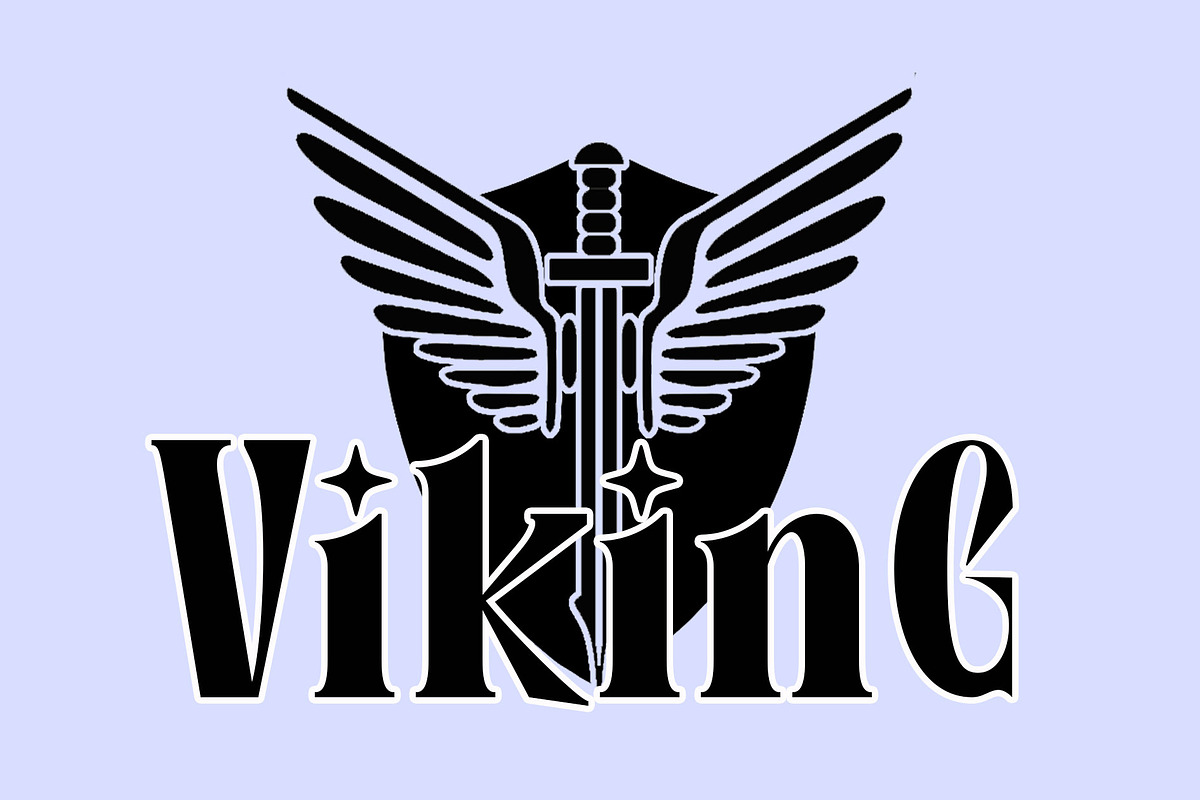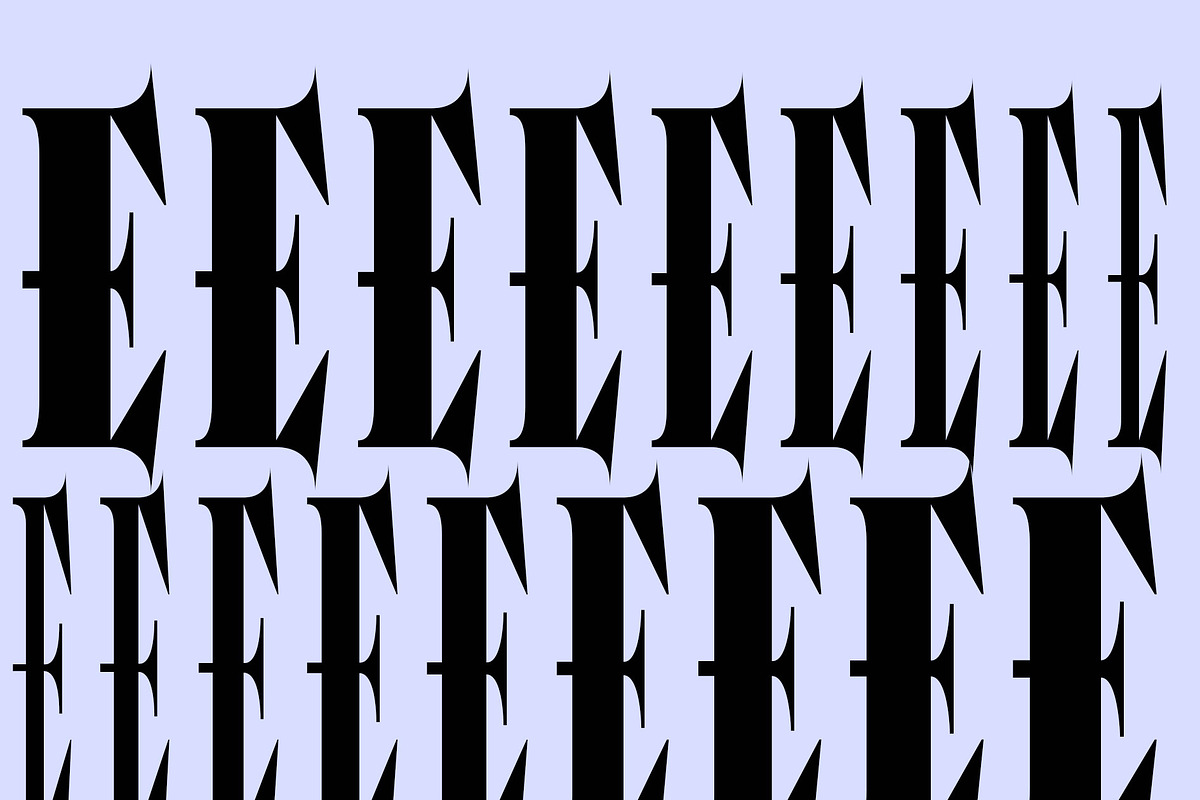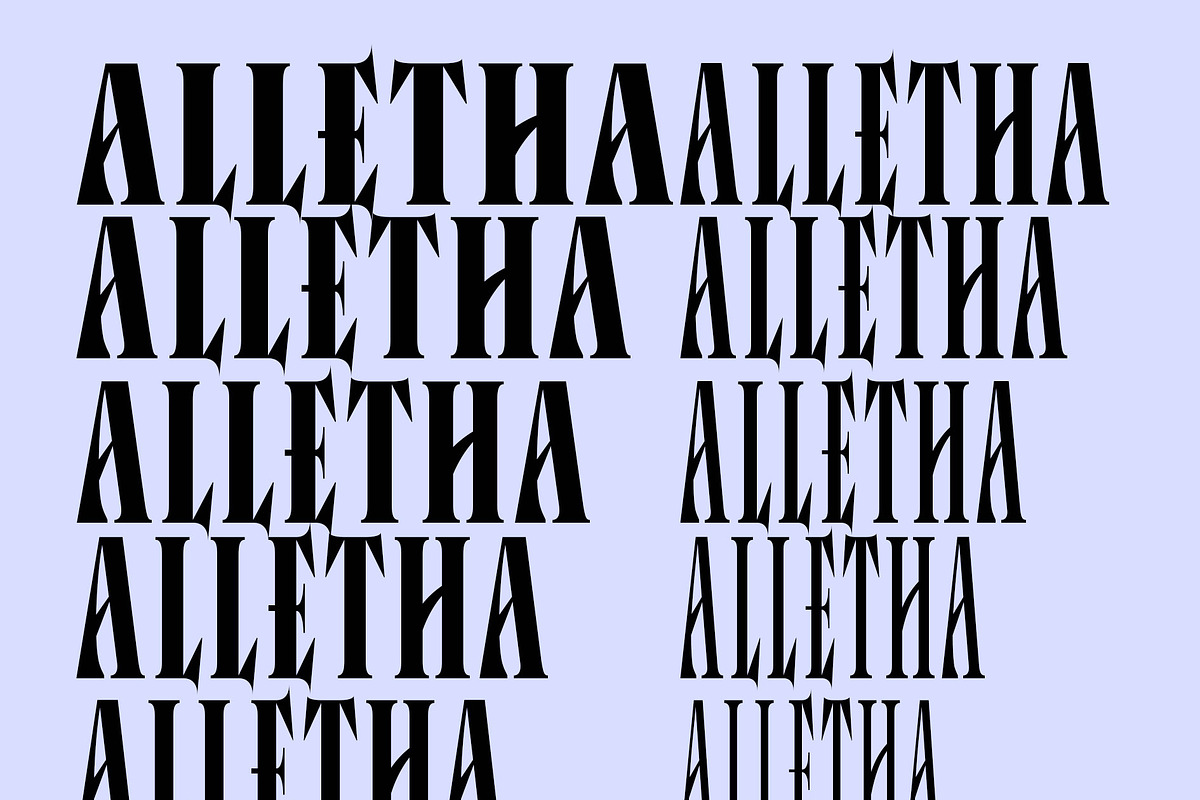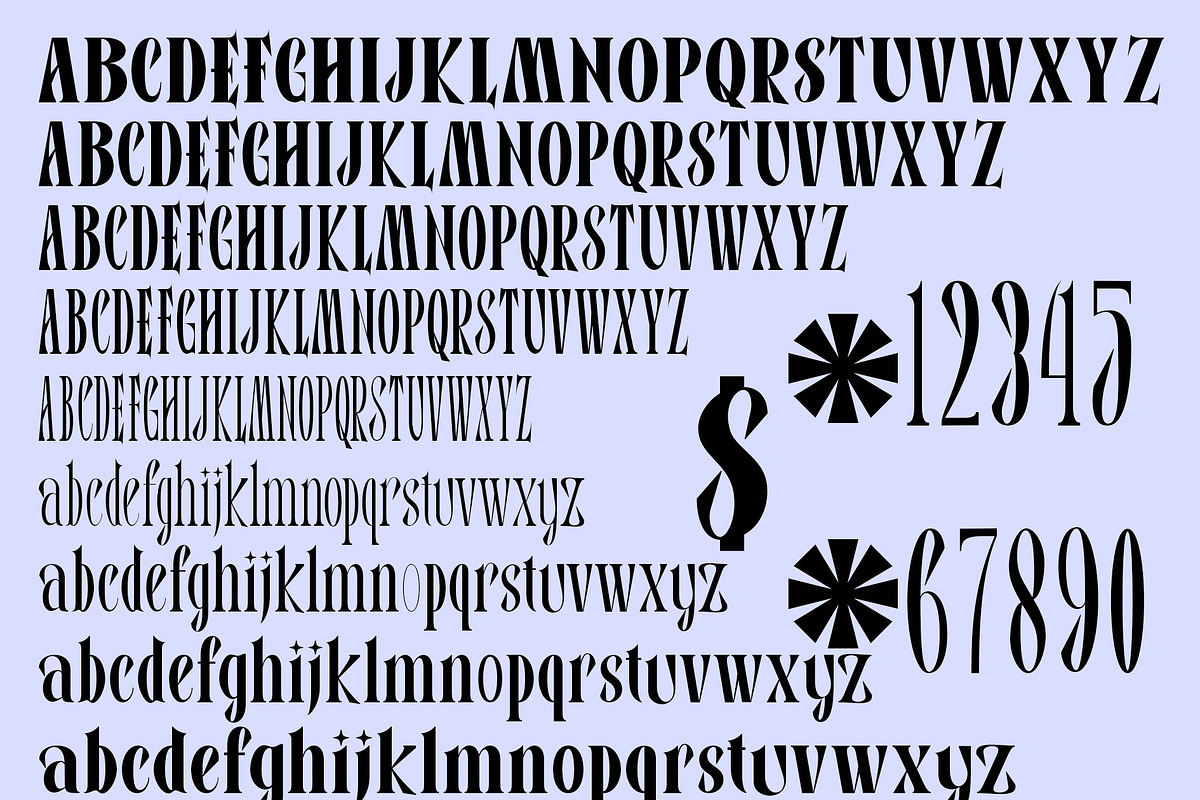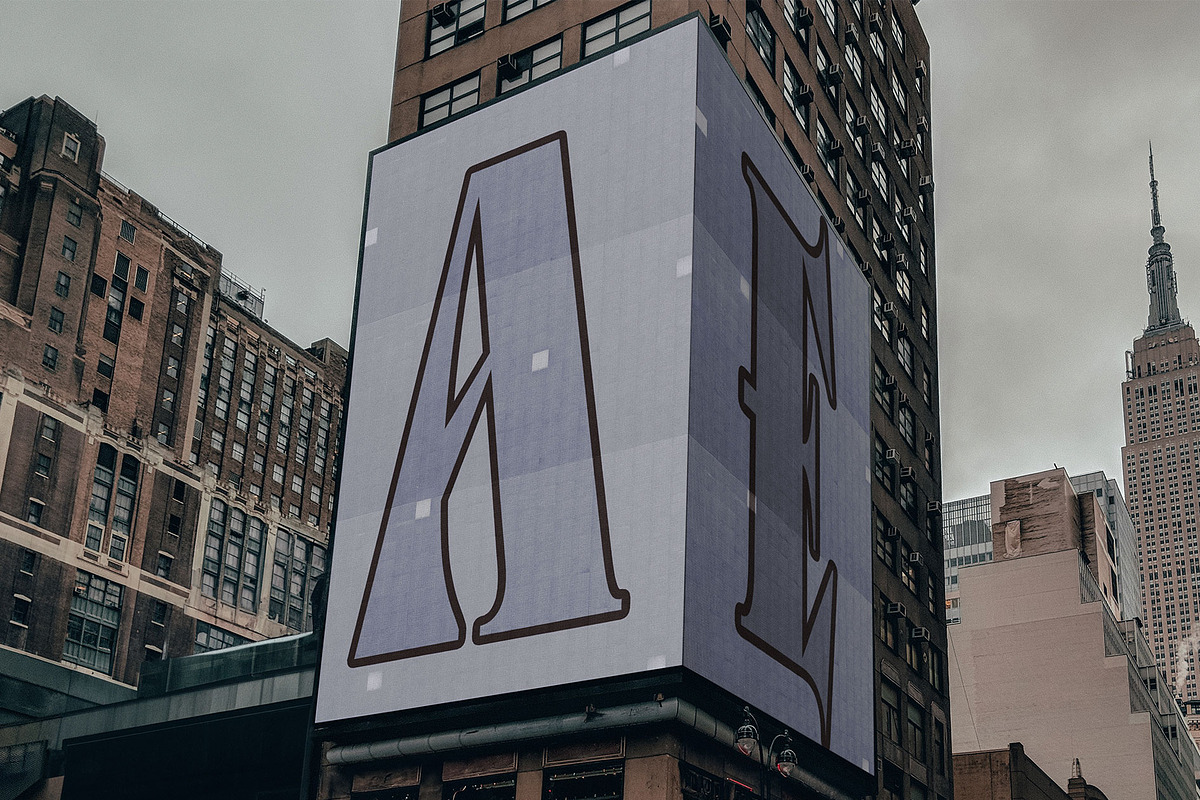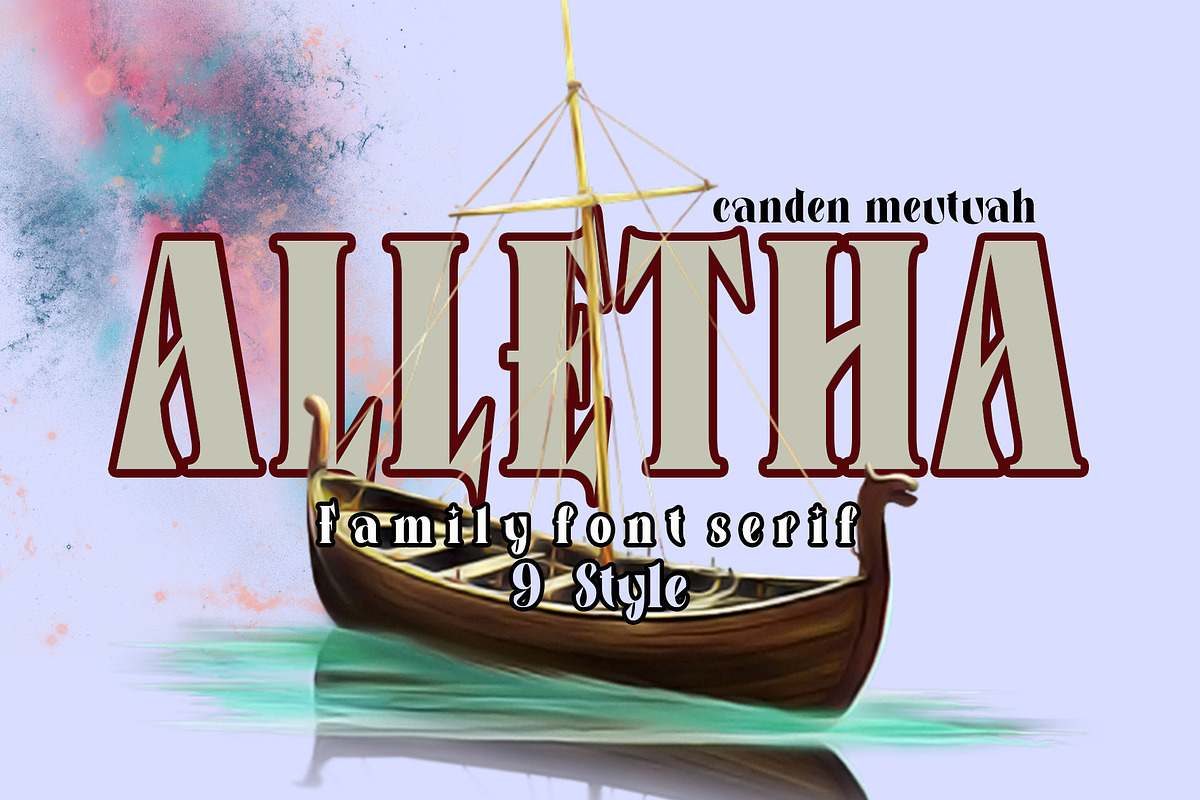
ALLETHA Family
it is a geometric family typeface available in nine thicknesses. This is a simple and elegant modern font family, this font family is very suitable especially for headlines, titles, brands, posters, packaging, titles, logos, and so on. thank you